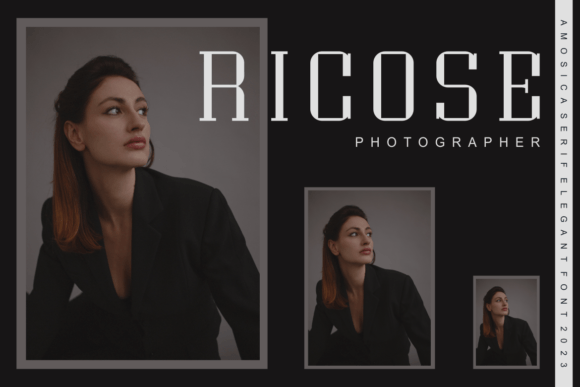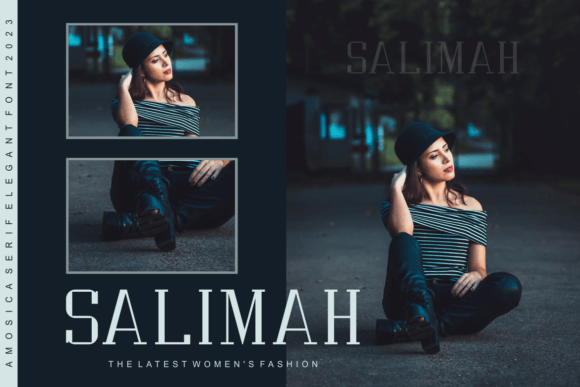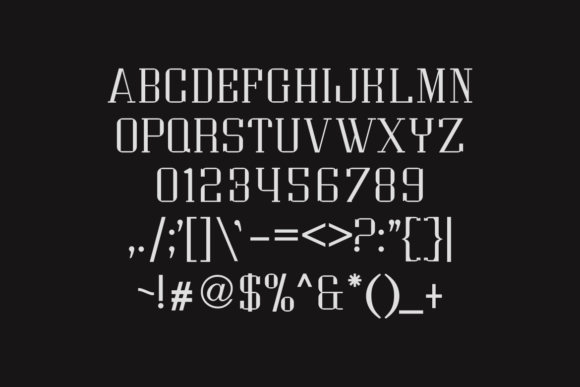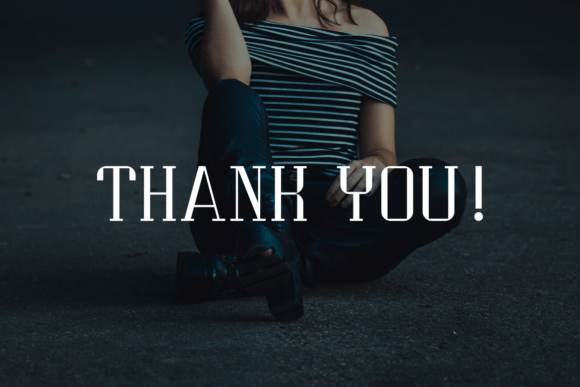
Discover the Elegance of Amosica Font: A Modern Serif Typeface for Creative Projects
In the world of typography, fonts play a crucial role in conveying messages, expressing creativity, and establishing brand identities. Among the numerous fonts available, Amosica Font stands out as a modern serif typeface that has captured the attention of designers and crafters alike. This lovely font is suitable for a wide range of branding projects, including logos, t-shirt printing, esports, and many more. In this article, we’ll explore the features, benefits, and uses of Amosica Font, and why it’s becoming a popular choice among creative professionals.
What is Amosica Font?
Amosica Font is a modern serif typeface designed to add a touch of elegance and sophistication to any design project. Its unique lettering style combines traditional serif elements with a contemporary twist, making it perfect for designers looking for a font that’s both classic and modern. The font’s clean lines, precise curves, and balanced proportions make it highly legible, even at small sizes.
Key Features of Amosica Font
So, what makes Amosica Font special? Here are some of its key features:
- Modern Serif Design: Amosica Font boasts a modern serif design that’s perfect for creating visually appealing text and headlines.
- High Legibility: The font’s clean lines and balanced proportions ensure high legibility, even at small sizes.
- Versatile: Amosica Font is suitable for a wide range of design projects, from logos and branding to t-shirt printing and esports.
- Elegant and Sophisticated: The font’s unique lettering style adds a touch of elegance and sophistication to any design project.
Benefits of Using Amosica Font
Using Amosica Font in your design projects offers several benefits:
- Stand Out from the Crowd: With Amosica Font, you can create unique and eye-catching designs that set you apart from the competition.
- Enhance Brand Identity: The font’s elegant and sophisticated design can help establish a strong brand identity and convey a sense of professionalism.
- Easy to Read: Amosica Font’s high legibility ensures that your message is conveyed clearly and effectively.
- Flexible: The font’s versatility makes it suitable for a wide range of design projects, from digital to print.
Use Cases for Amosica Font
Amosica Font is suitable for a variety of design projects, including:
- Logo Design: Create a lasting impression with a unique and memorable logo designed with Amosica Font.
- T-Shirt Printing: Add a touch of elegance to your t-shirt designs with Amosica Font.
- Esports: Use Amosica Font to create professional-looking esports designs, including team logos, jerseys, and marketing materials.
- Branding: Establish a strong brand identity with Amosica Font, suitable for business cards, brochures, and website headers.
In conclusion, Amosica Font is a modern serif typeface that’s perfect for designers and crafters looking for a versatile and elegant font for their creative projects. Its unique lettering style, high legibility, and flexibility make it suitable for a wide range of design projects, from logos and branding to t-shirt printing and esports. Whether you’re looking to establish a strong brand identity or create eye-catching designs, Amosica Font is an excellent choice.